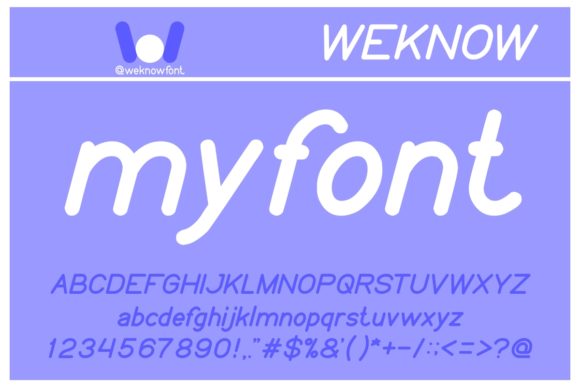
My Font: The Ultimate Sans Serif Font for Magazines and Beyond
My Font is a modern and elegant sans serif font that will add a touch of sophistication to any project. Whether you're creating a magazine, flyer, or website, My Font will make your words stand out.
It's the perfect choice for headlines, body text, and everything in between. With its clean lines and simple curves, My Font is easy to read and understand. It's also versatile enough to work well with a variety of design styles.
If you want to create a stunning and memorable magazine or design project, you need My Font. It is the perfect font choice that adds style and readability to your text.
With its timeless design, My Font will make your words shine. Its contemporary and clean look will captivate your audience and leave a lasting impression.